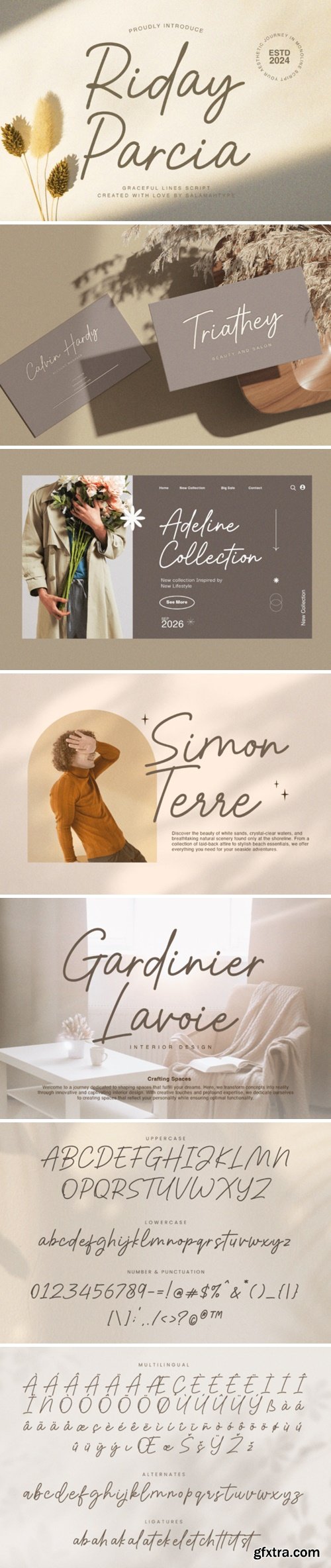
A beautiful monoline script font suitable for design projects such as logos, social media, advertising, product packaging, product design, labels, photography, watermarks, invitations, stationery and more.